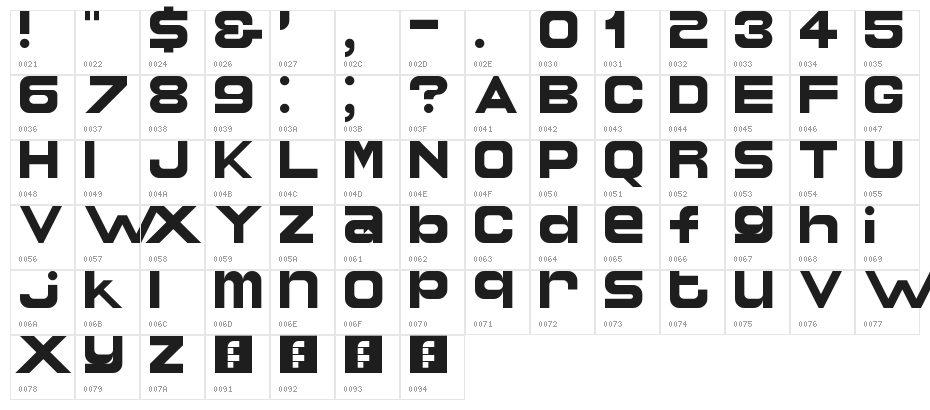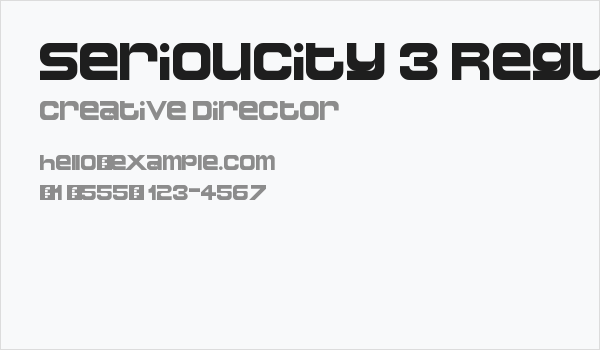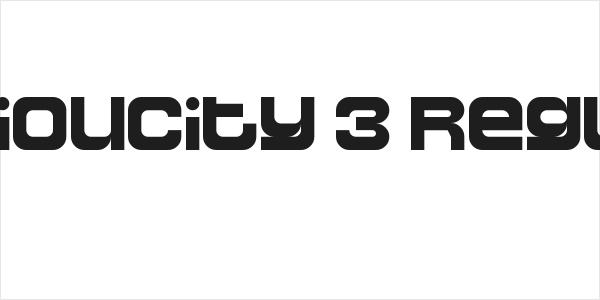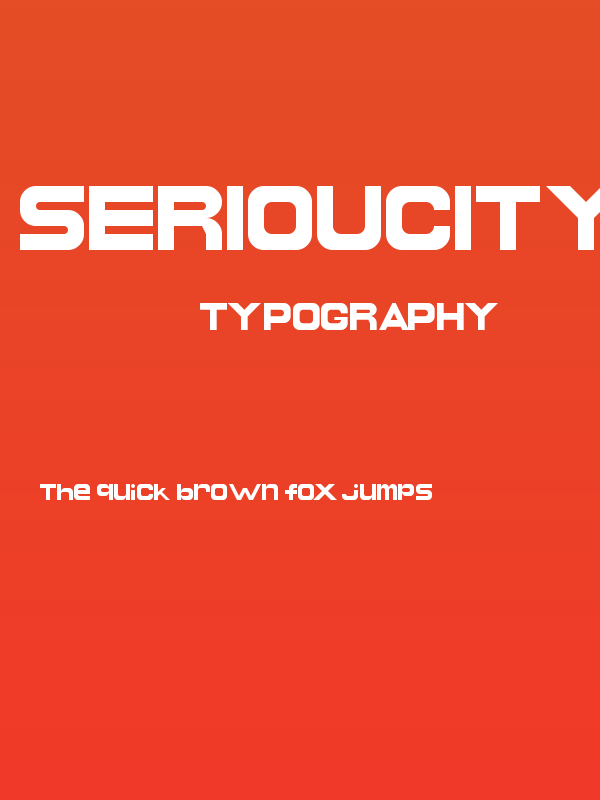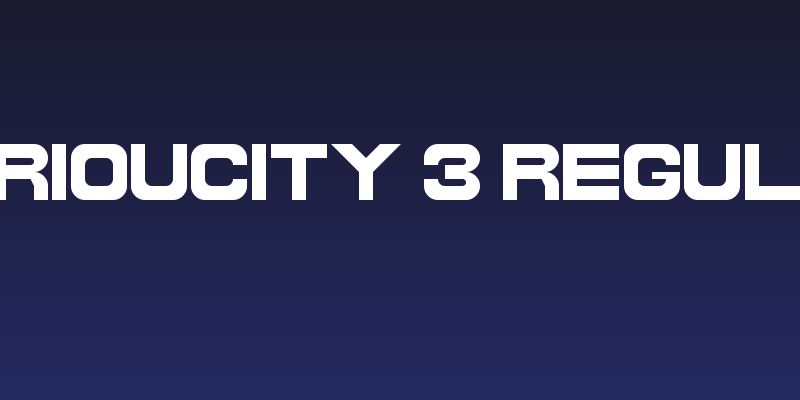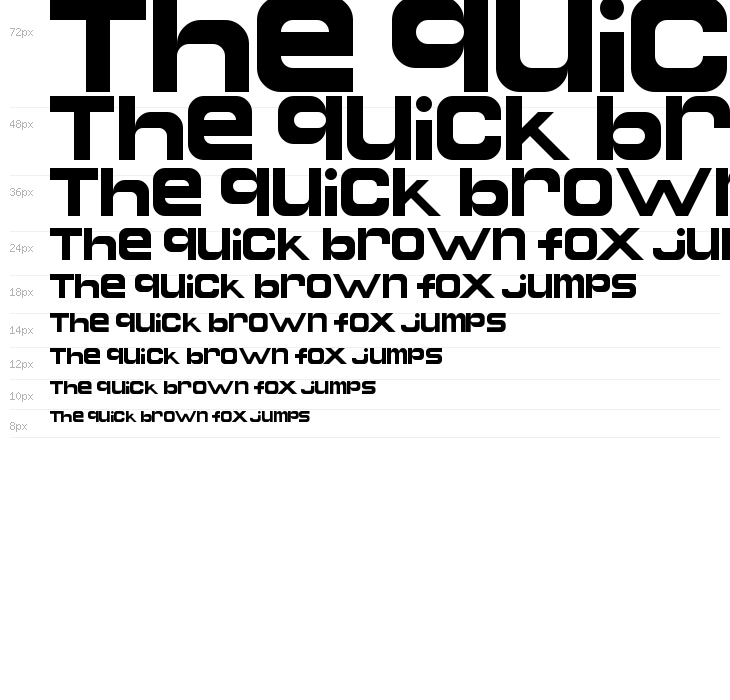
Serioucity 3 Regular Font
Serioucity 3 Regular Description
This font features a bold and geometric design, characterized by its strong, angular lines and uniform stroke width. The uppercase letters are particularly striking, with a modern and futuristic appearance. The lowercase letters maintain the same boldness, offering a cohesive look across different cases. Numbers and special characters share this robust style, making them easily legible and visually impactful. The font's design is well-suited for attention-grabbing headlines and logos, where a strong visual presence is required. Its geometric nature gives it a contemporary feel, while the consistent stroke width ensures clarity and readability.
| Proposed Projects | Ideal for branding, advertising, and digital media projects that require a strong visual impact. |